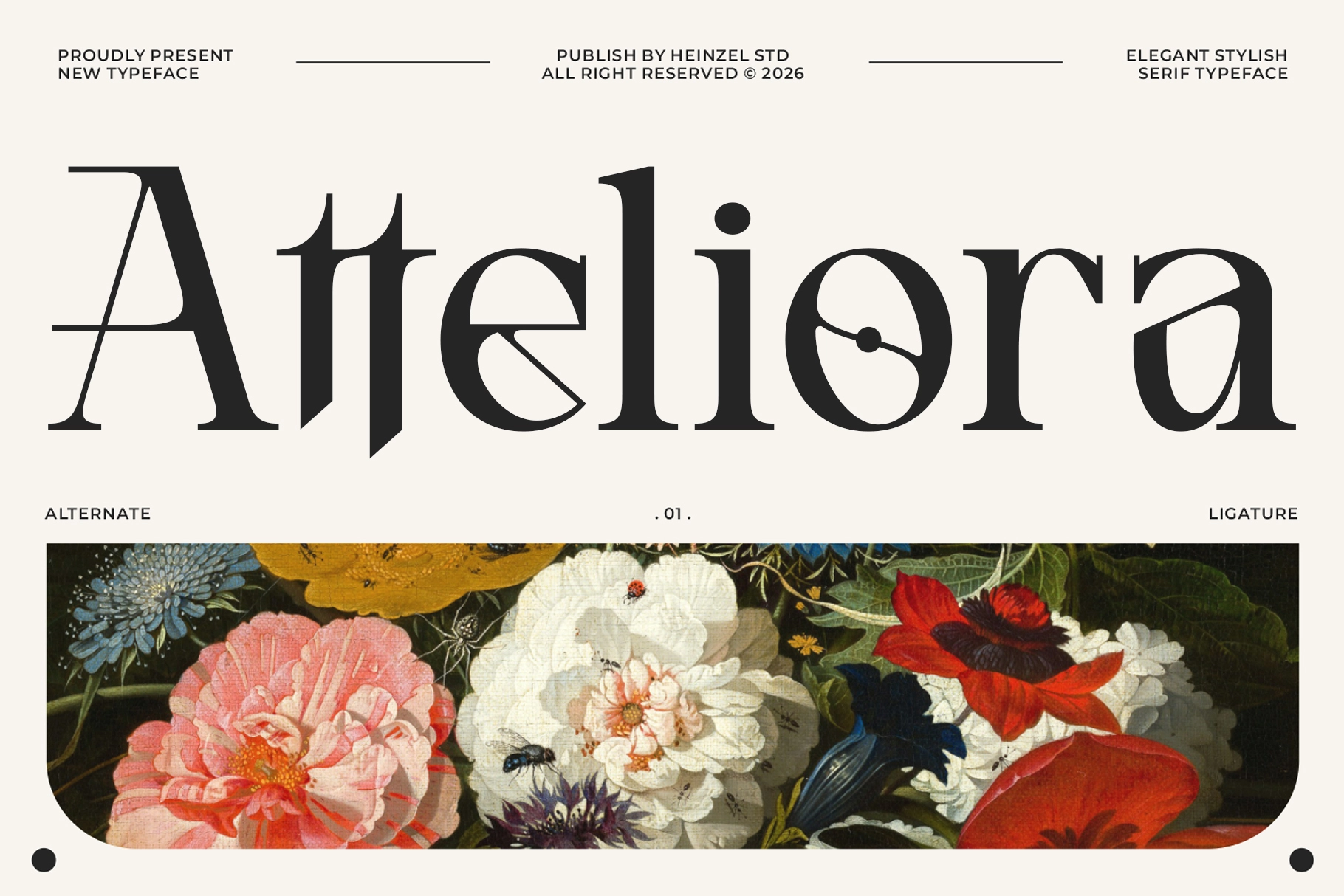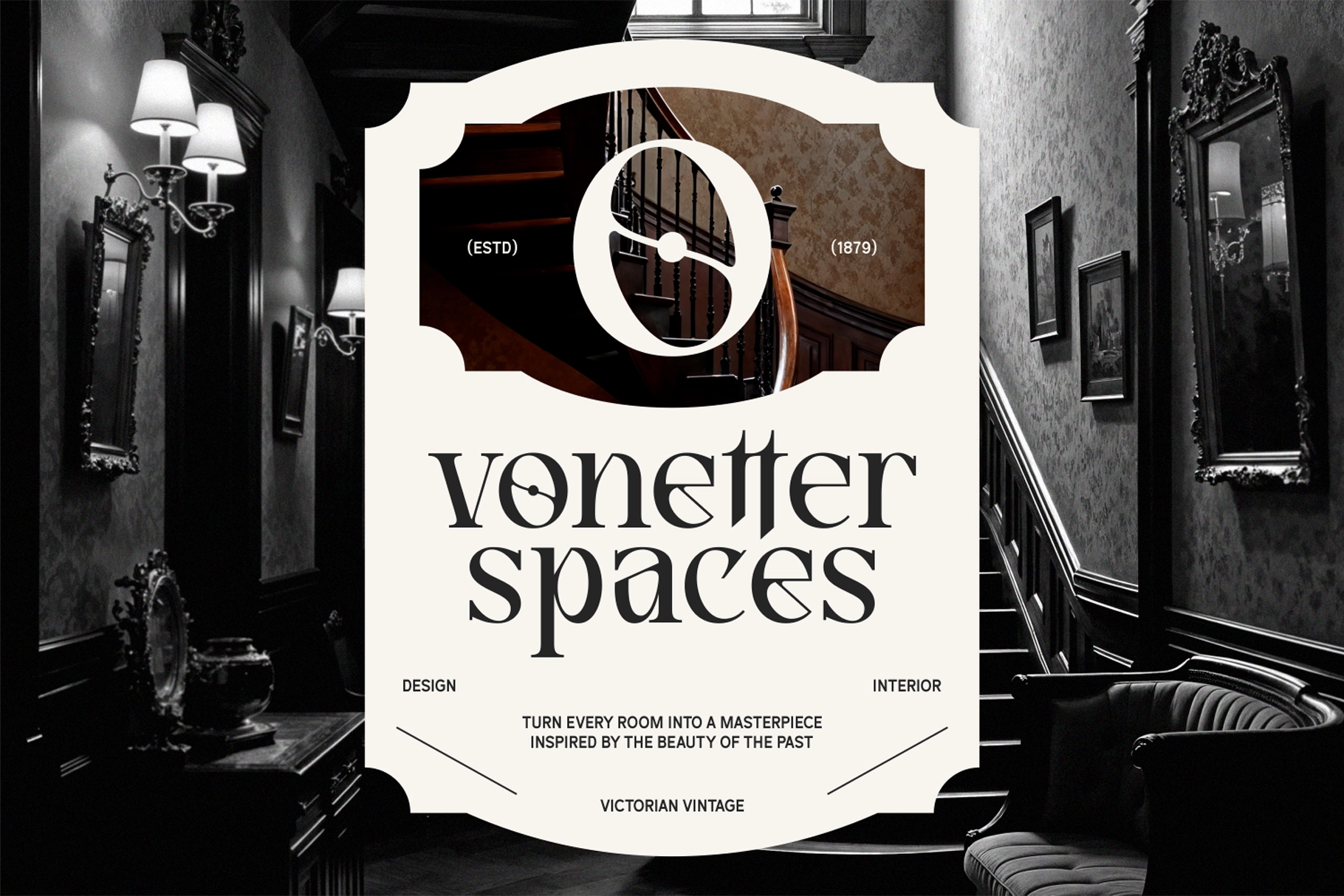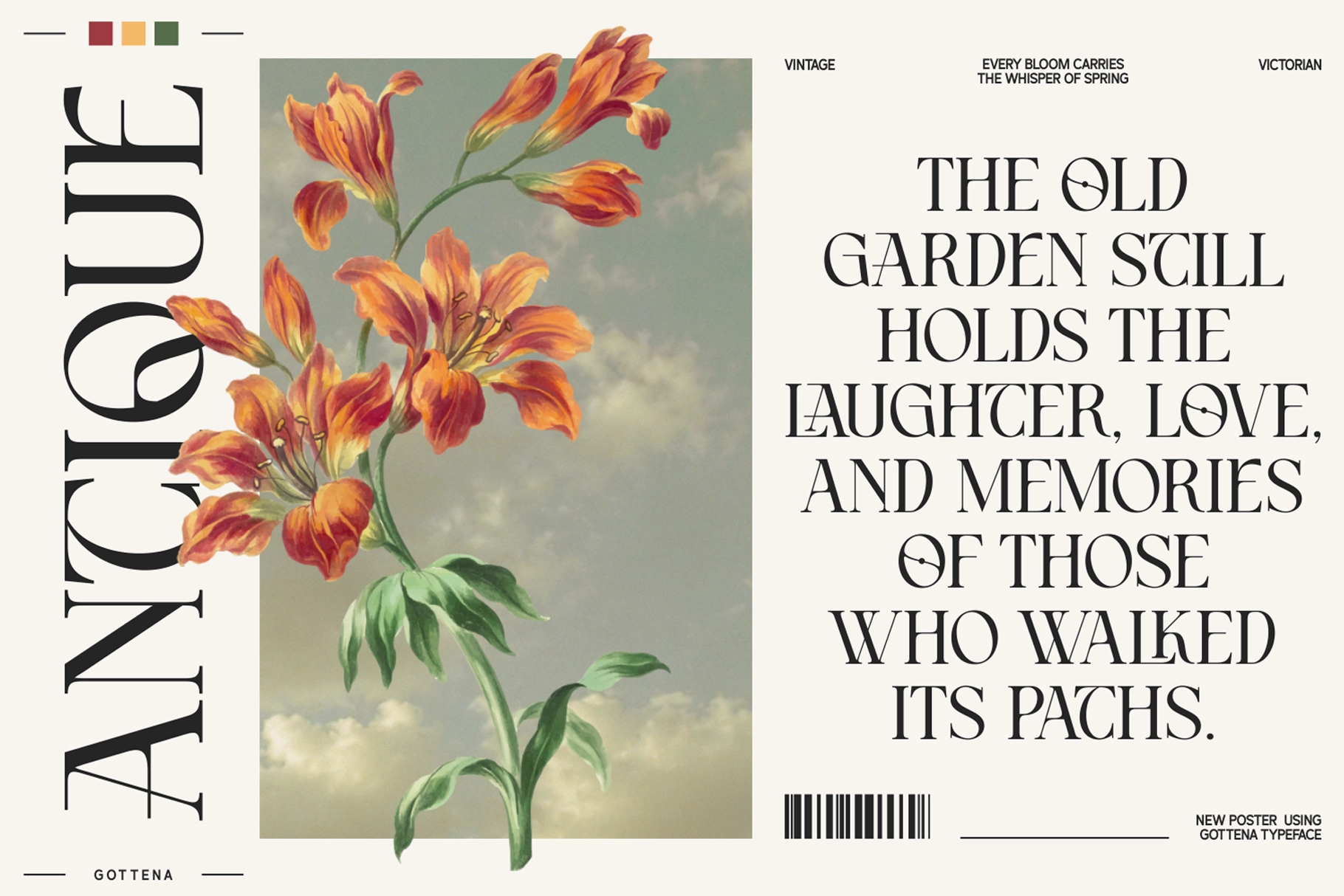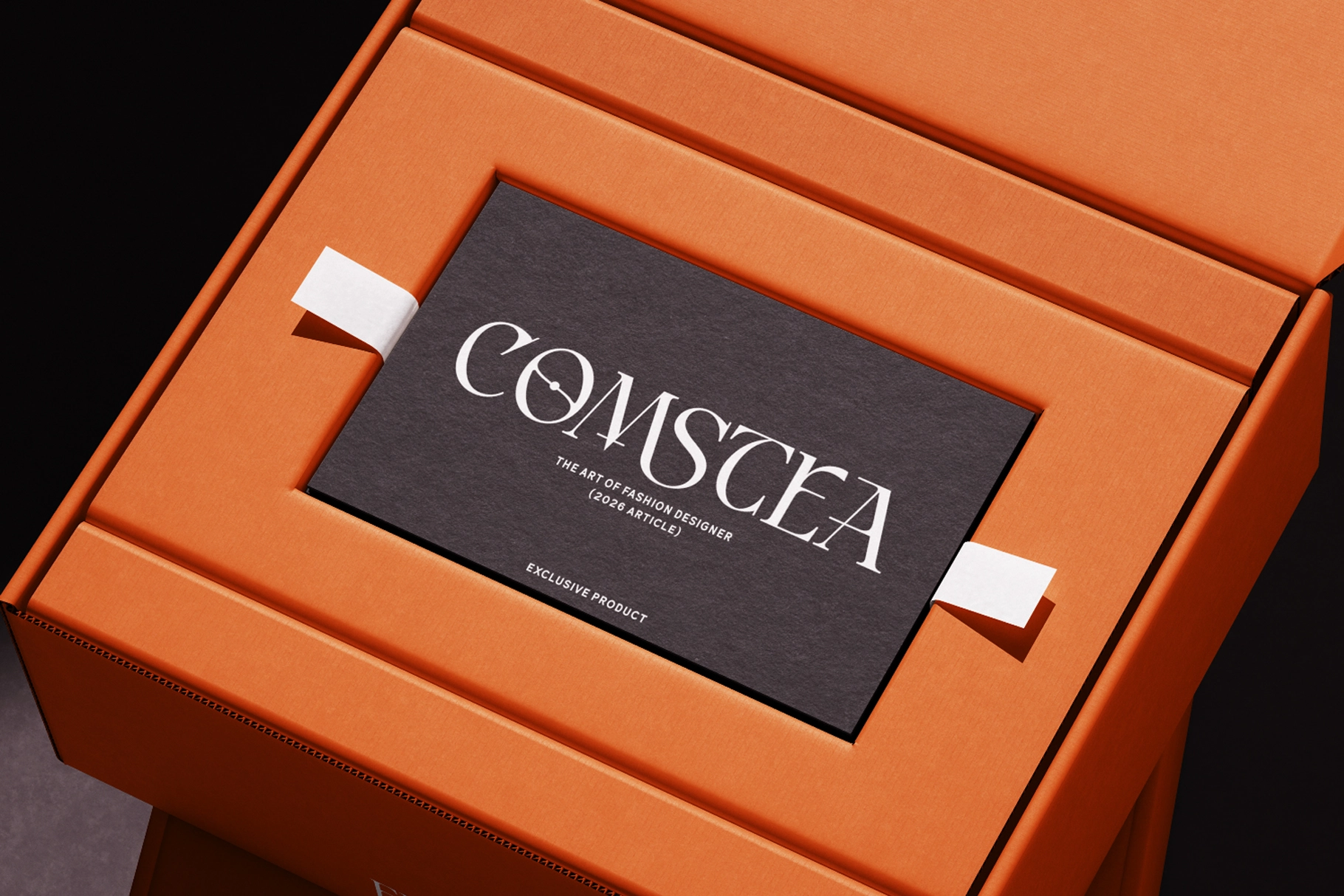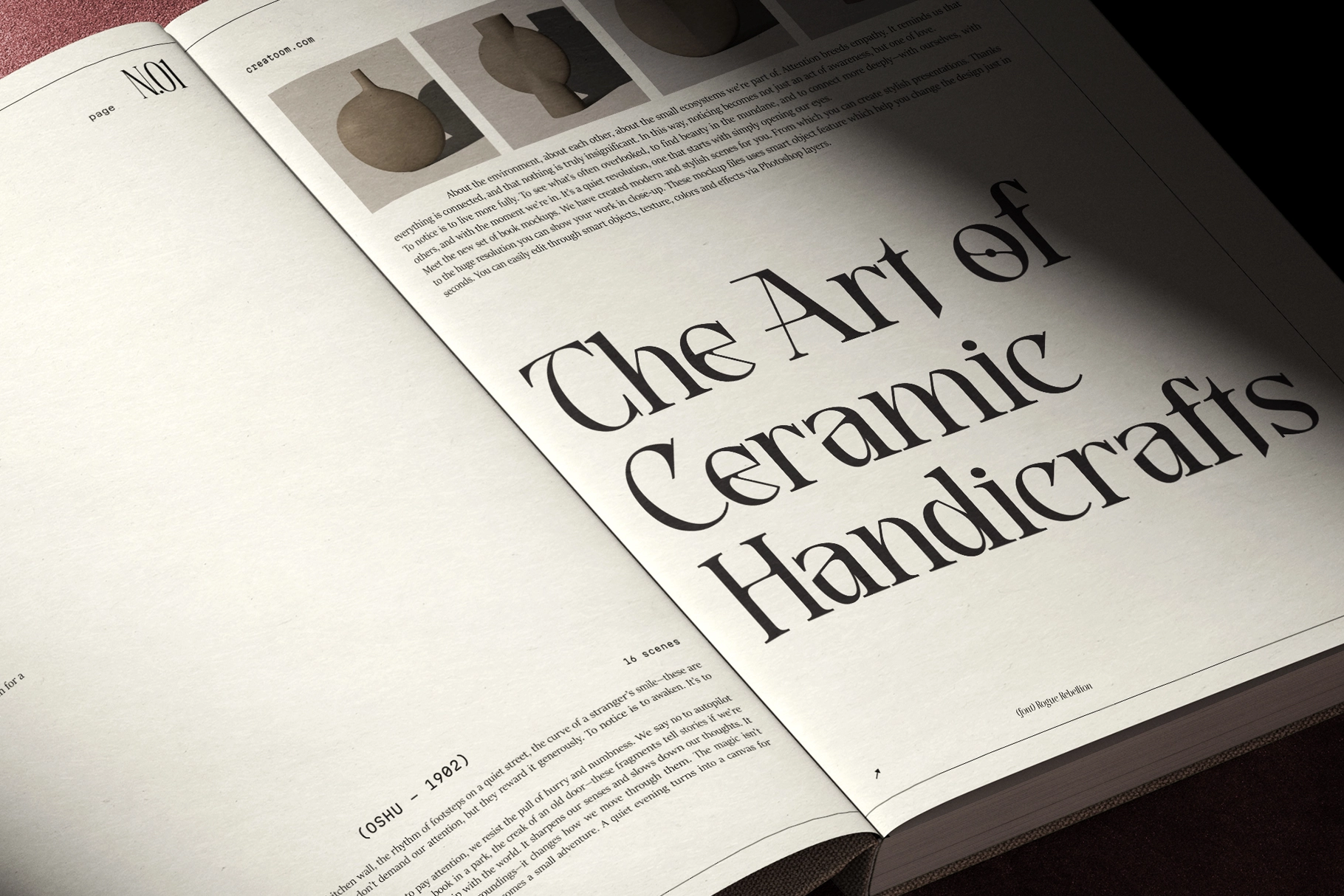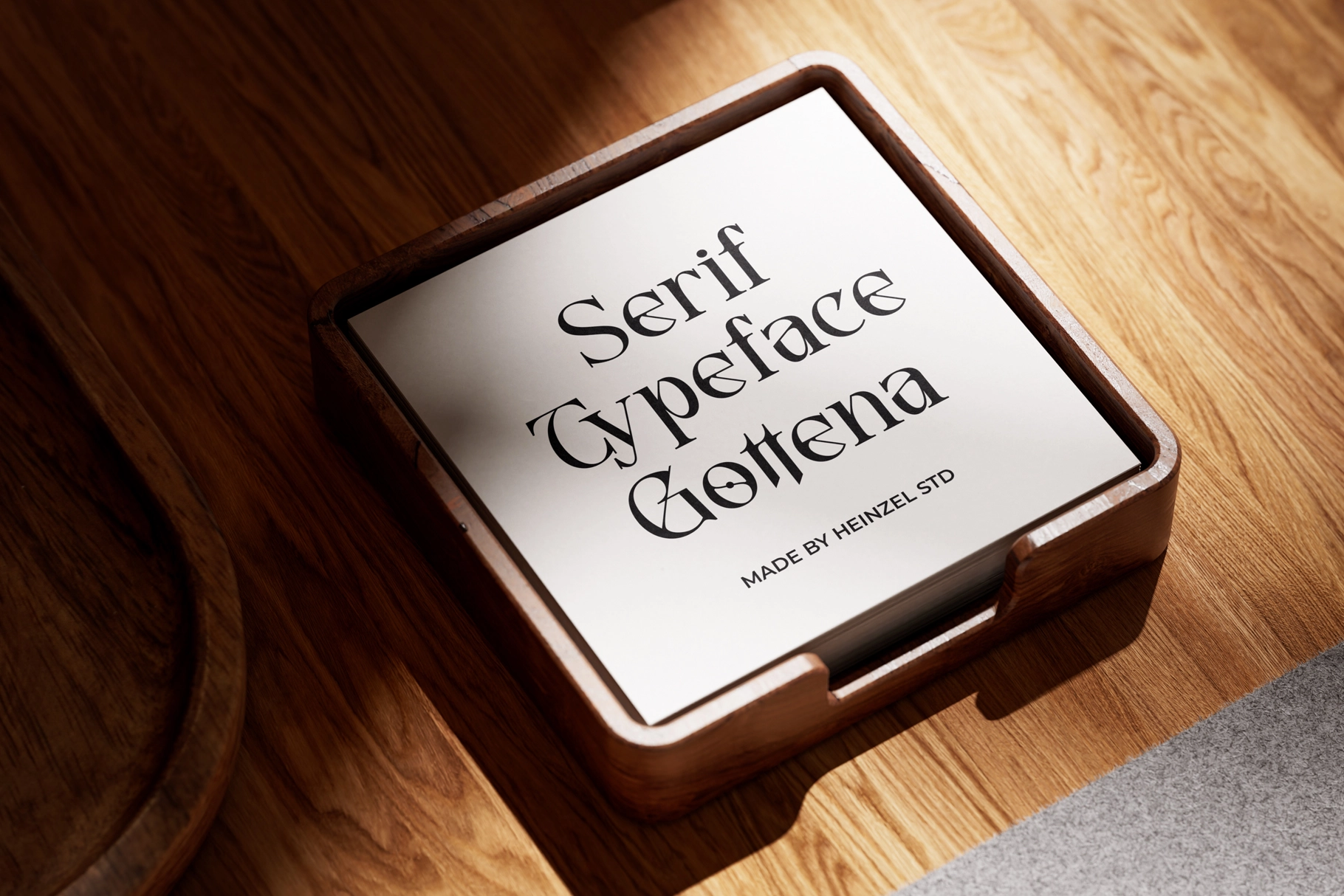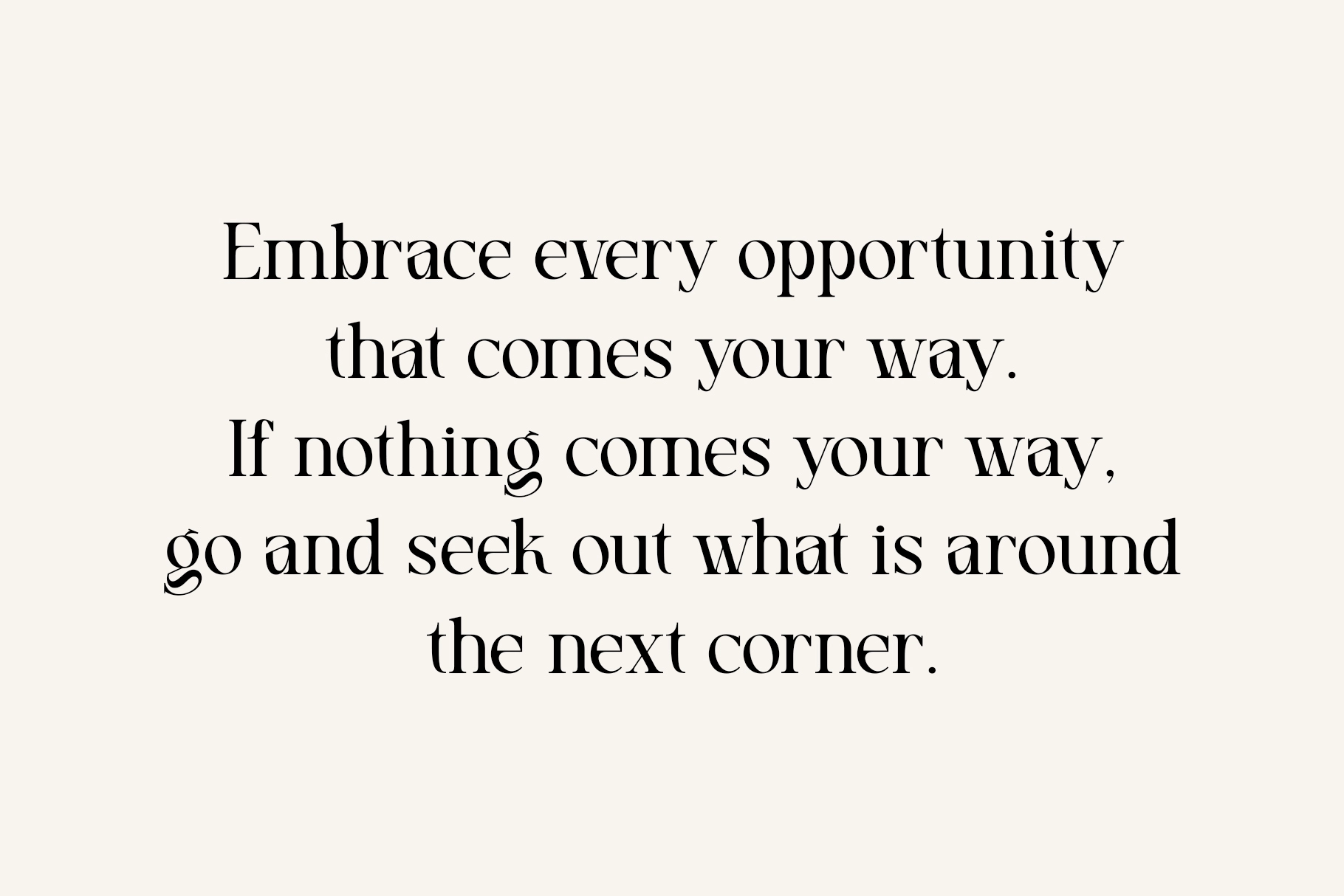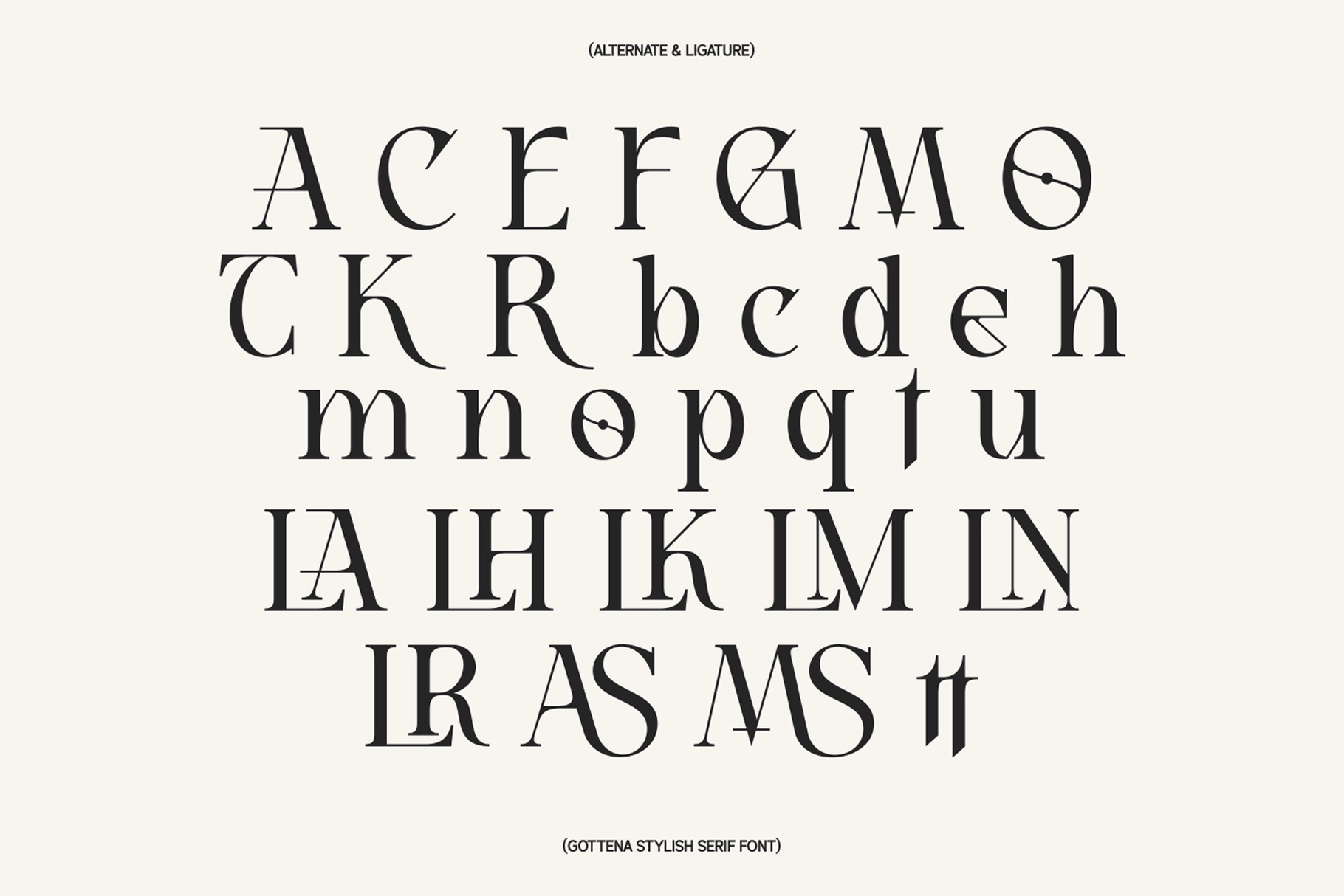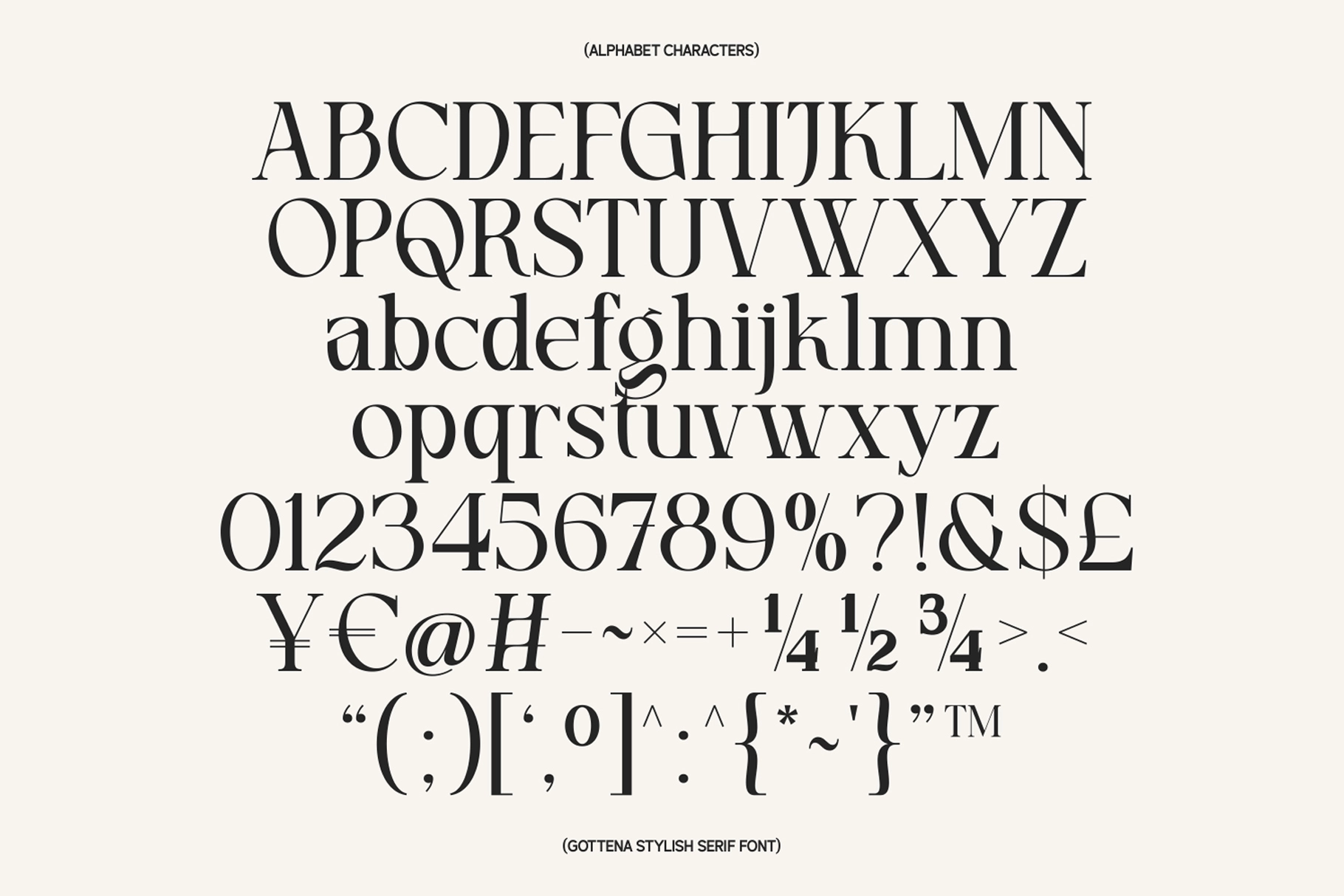
Atteliora - Elegant Stylish Serif Font
Atteliora runs high stroke contrast through a display serif built for the kind of editorial page that photographs well — hairline thins sit next to full-bodied verticals, and a single stylistic set swaps in swash capitals and joining ligatures like ct, tt, and ft. Regular and Italic cover the family, the italic leaning into a slightly narrower, more calligraphic angle.
Use it for magazine headlines and mastheads, cosmetic and skincare packaging, wedding stationery, boutique logotypes, and book covers, where the ligatures keep tight letter pairs from crowding at display size. Alternates for A, T, K, R, and several lowercase letters add hand-set variation between headline repeats.
• 2 styles: Regular and Italic;
• uppercase & lowercase;
• numerals, fractions, currency symbols, punctuation & symbols;
• ligatures, swash/alternate stylistic set